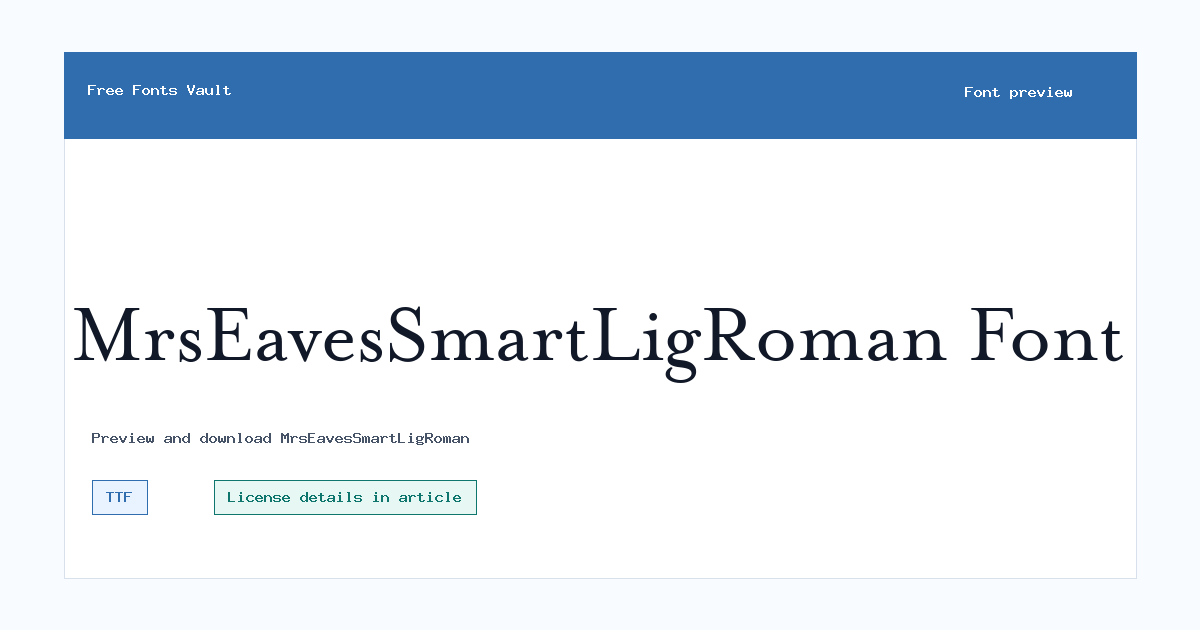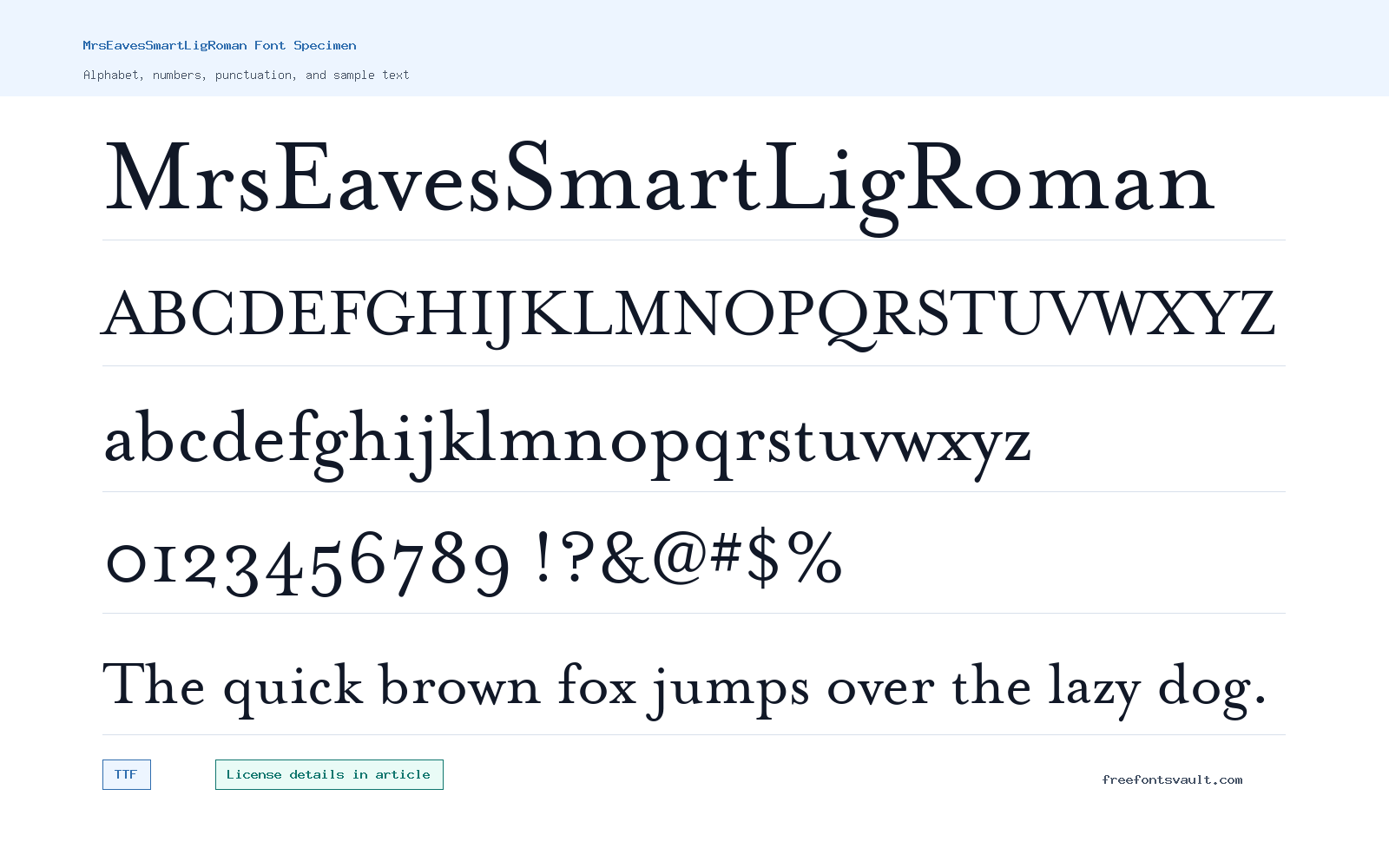
MrsEavesSmartLigRoman
- Designer Emigre Graphics, Designed by Zuzana Licko
MrsEavesSmartLigRoman is a regular TrueType font for visitors who want a refined Roman-style type option to test in headlines, names, invitations, and short display text.
About MrsEavesSmartLigRoman
MrsEavesSmartLigRoman is offered as a regular-weight TTF file. The name points to a Roman style, so it is best tested where a composed, readable serif look is needed rather than where you need a heavy display face or casual lettering.
MrsEavesSmartLigRoman should be judged with real words, not only alphabet samples. Roman-style serif forms can look polished in names and headings, but spacing, ligatures, and punctuation can change the feel quickly. Test initials, apostrophes, numbers, and the exact capitalization your project needs.
For print-style layouts, give the font enough line height and avoid crowding it inside very narrow boxes. If you are building invitations, bookish graphics, or quote artwork, pair it with a quiet sans-serif for dates, addresses, and small details so the main title remains the focal point.
- Regular style with normal weight for straightforward typesetting
- Refined serif character suited to polished short-form typography
- Better for display and invitation text than dense interface labels
- Invitation titles, name layouts, and elegant short text
- Bookish headings, quote graphics, labels, and personal design drafts
- Wedding-style samples, editorial headings, and formal name settings
- Quote cards, stationery drafts, and refined printable layouts
The font is credited to Emigre Graphics and designed by Zuzana Licko.